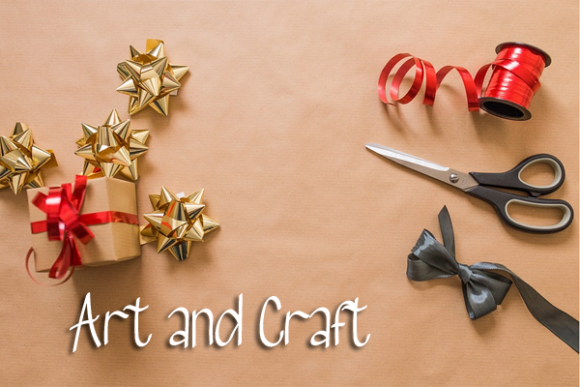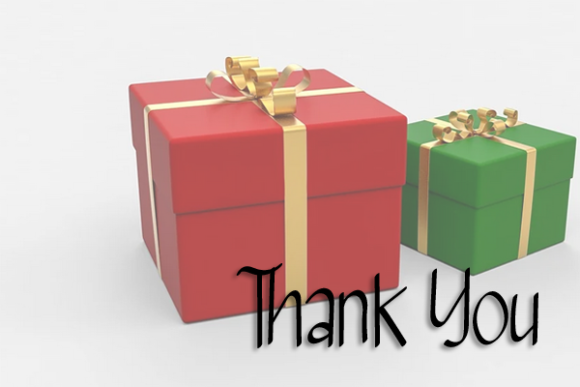
Discover the Whimsy of Attractive Font
Have you ever found yourself in a creative flow, staring at a blank page, and suddenly, an idea strikes? You envision the perfect font, one that captures the essence of your concept and elevates it to new heights. For designers, this moment is a treasure – a spark that ignites the creation process. And for those seeking that perfect font, we’d like to introduce you to the Attractive Font.
This lovely script font embodies a relaxed theme, making it an ideal choice for a wide range of projects. Whether you’re designing a magazine cover, a wedding invitation, or a social media campaign, Attractive Font has the potential to take your creation to the next level. Its versatility and charm make it a valuable asset to any designer’s library, and we’re excited to share its beauty with you.
Attractive Font Key Features
- Unique Character Set: Includes a wide range of characters, including Latin, Cyrillic, and Greek alphabets, as well as various symbols and icons.
- Stylistic Alternates: Features a set of stylistic alternates that allow designers to add unique flair to their text, including swashes, ligatures, and ornaments.
- Language Support: Supports over 100 languages, making it an ideal choice for global branding and design projects.
Attractive Font Review
Overall, I found “Attractive Font” to be a solid choice for designers looking for a stylish font. ✨ Here are some of its standout features:
- Unique aesthetic: The font has a distinctive, hand-drawn feel that sets it apart from more generic fonts.
- High-quality rendering: The font renders well on a variety of devices and screen sizes, making it a great choice for digital projects.
- Good legibility: The font is easy to read, even at smaller font sizes, which is a must for any font.
However, there are some limitations to consider: ⚠️
- Limited font weight options: While the font has a range of styles, the weight options are limited, which may not be suitable for projects that require a lot of emphasis.
- No italics or obliques: This may be a drawback for designers who need to use italics or obliques for emphasis or to match existing typography.
Overall, I’d recommend “Attractive Font” for designers who want a stylish, high-quality font for their projects. While it may not be the most versatile font, its unique aesthetic and good legibility make it a solid choice for many applications.
Tips for Getting the Most Out of Attractive Font
To maximize the impact of Attractive Font, consider the following tips:
- Use it sparingly to create visual interest.
- Pair it with complementary colors and fonts.
- Experiment with different font sizes and weights.
Attractive Font is suitable for:
- Headlines and titles.
- Emphasizing key points or calls-to-action.
- Creating visually appealing quotes or captions.